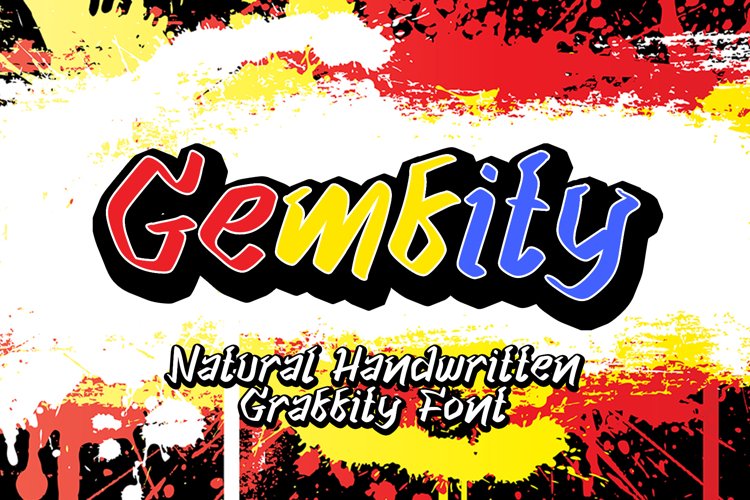
Beautiful Handwritten
Gemfity is a unique decorative font with a graffiti style. It will elevate a wide range of design projects to the be it branding, headings, wedding designs, invitations, signatures, logotype, wall art illustration, apparel, labels, and much more!